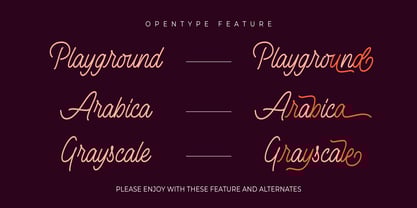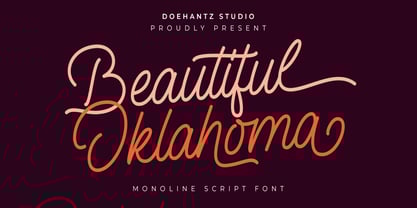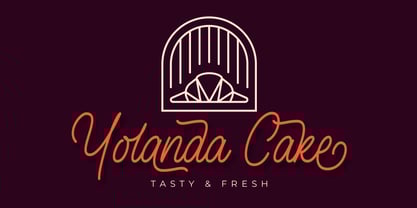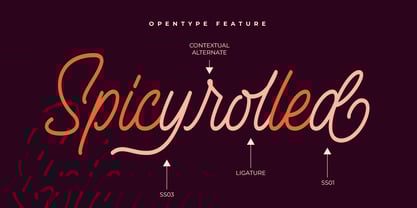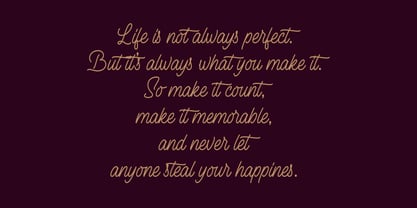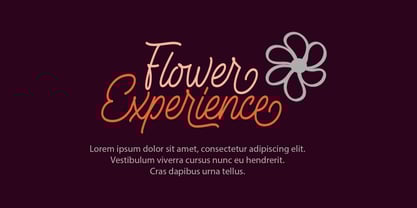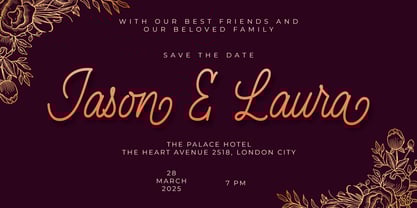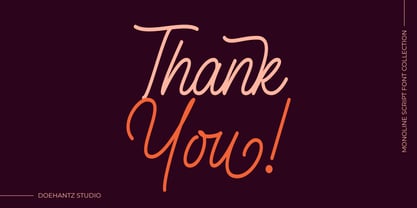
Beautiful Oklahoma
by Doehantz Studio
The Beautiful Oklahoma Font Family was designed by Abduhan Fikhri and published by Doehantz Studio. Beautiful Oklahoma contains 1 styles. More about this family
Introducing the radiant, "Beautiful Oklahoma," an elegant monoline script font. With its sophisticated, minimalist lines, this font breathes life into logos and business branding, setting them apart from the competition. Curated with finesse, it adds a touch of romance to wedding invitations. More than a font, it creatively morphs into an alluring watermark, enhancing the authenticity of your photography. Enter the world of "Beautiful Oklahoma" and experience the distinction it brings to your vision.
Designers: Abduhan Fikhri
Foundry: Doehantz Studio